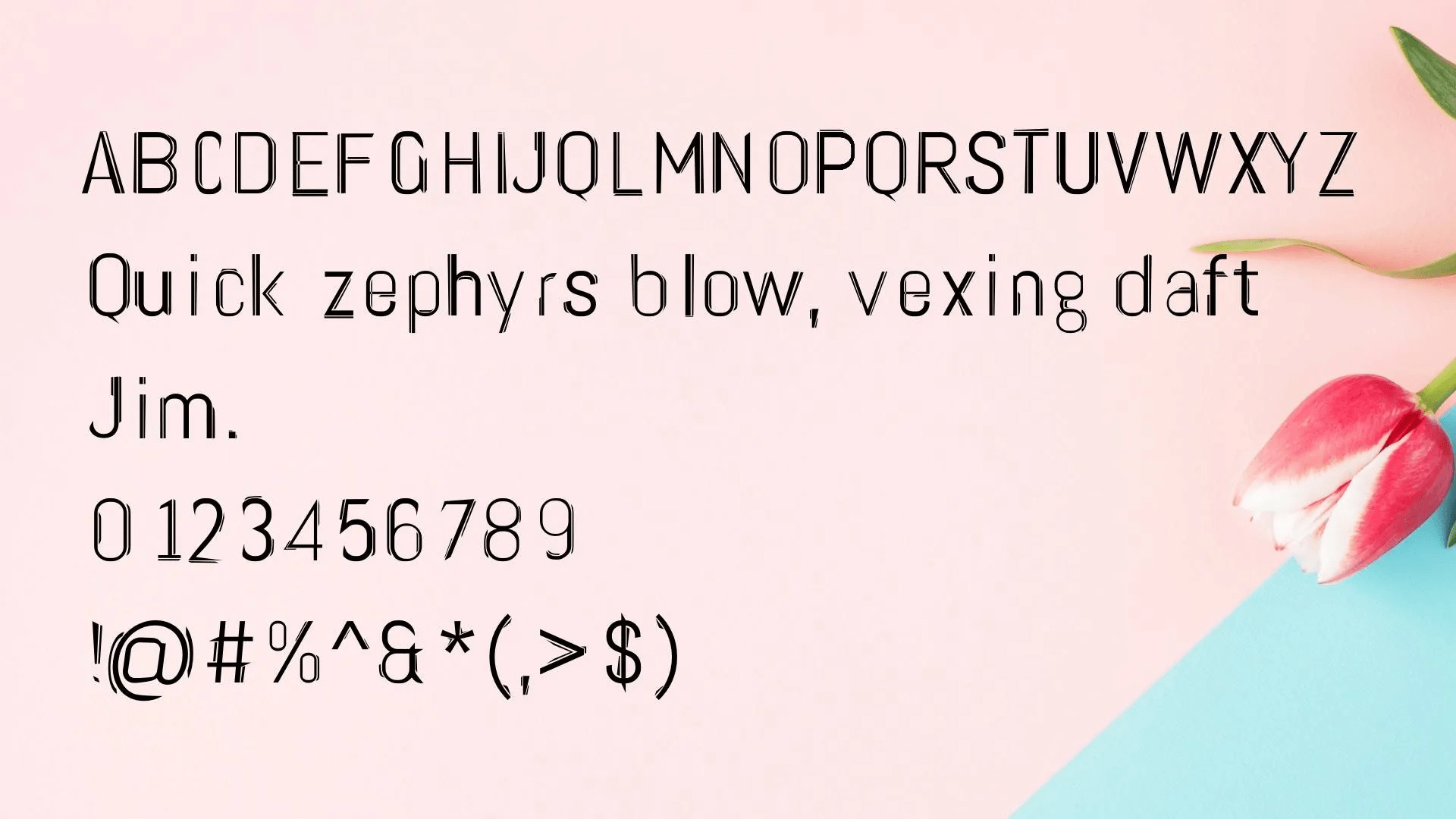
Twin Liner Display Font
Twin Liner font is a versatile typeface that comes in the category of the decorative typeface family. It has been designed to an extraordinary look along with sliced double lines. It was designed and shared by a remarkable designer in the type market that is well-known as Boldfonts. The designer wanted to make a deco-style font that represented this era and meet the expectations of this modern era. Boldfonts is also famous for some other decorative typefaces and many notable designers appreciated their creative fonts.
Since it was published on the site of Boldfonts, it gained tremendous popularity among many remarkable designers due to its modern design techniques and styles. This amazing typeface is filled with standard glyphs, decorative patterns, texture ligatures, high-quality swashes, and glims that make this typeface suitable for both small and large display screens and also good to be used on printing projects.
This creative typeface can fulfill all the requirements of today\’s latest designs because of its sharp and classic characters. It is well suited for big headlines and titles as well as lengthy paragraphs. In addition, this font family has OpenType and TrueType features along with realistic letterforms, multiple adjustments, stylistic alternatives as well as massive language support including Latin and Cyrillic characters. This is the most demandable font for creating quirky designs as well as texture content. Many designers have adopted this decorative font for various purposes.
Moreover, Twin Liner is the best-wanted typeface that can be used with the pairing of many other prominent typefaces for astonishing designs such as Avenir font. This combination would be suitable for commercial projects. Besides, the design offers some unique characters like its \”G, R\” and @ that make it extremely different from some other decorative and fancy typefaces.